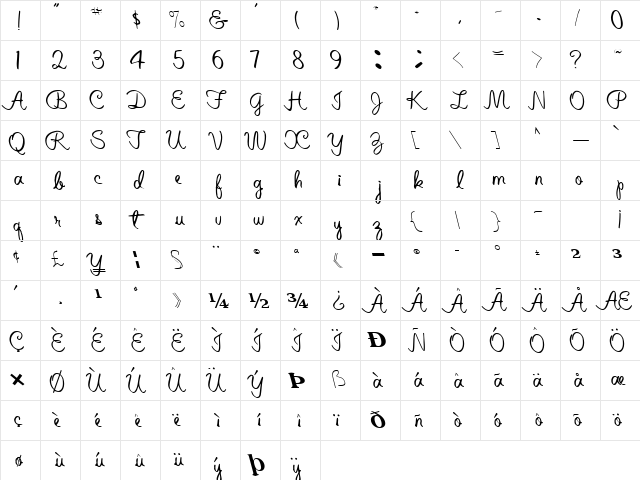
AlteredStates67 Regular
Design Context for AlteredStates67 Typeface
AlteredStates67 takes a measured approach to typography — its balanced proportions and neutral character make it a reliable workhorse for both digital and print work.